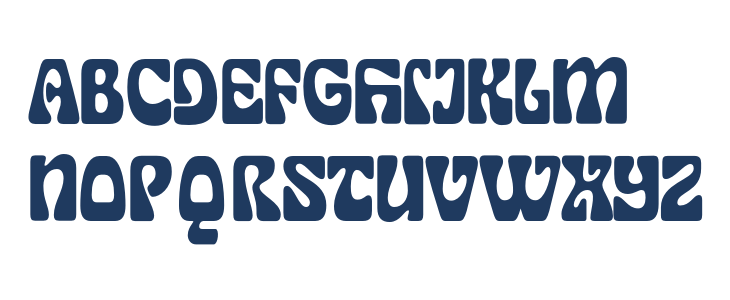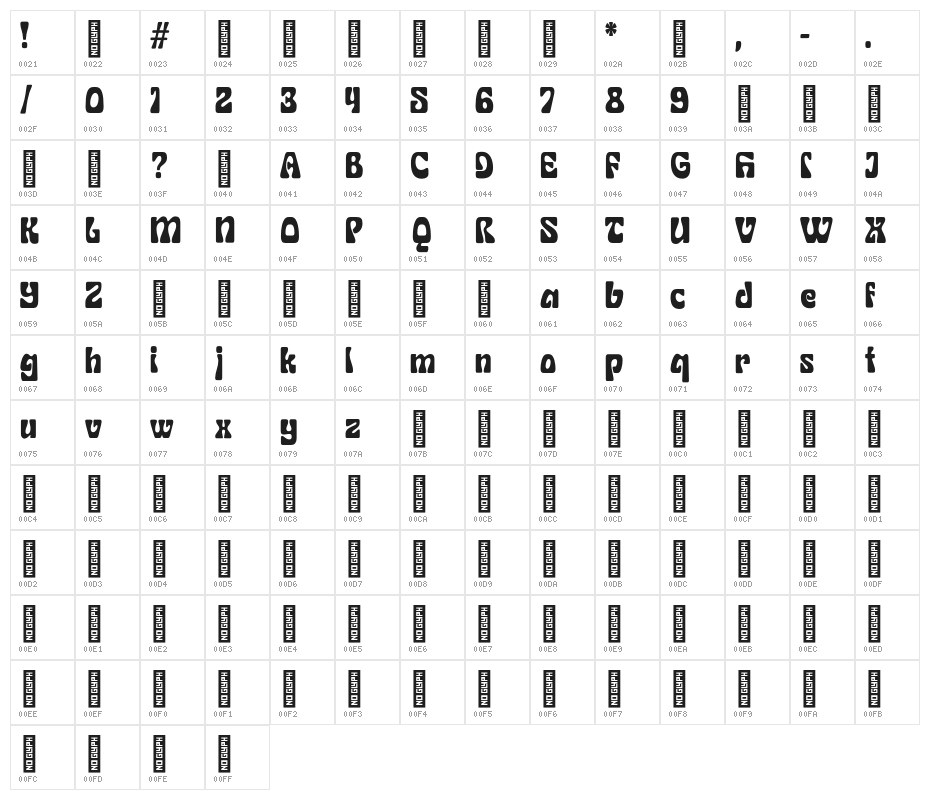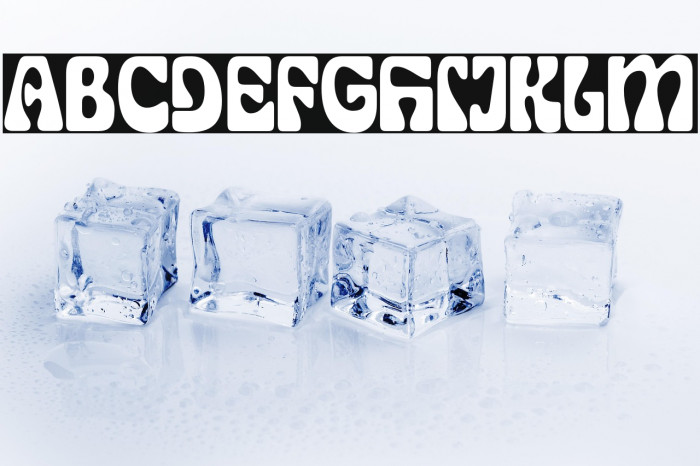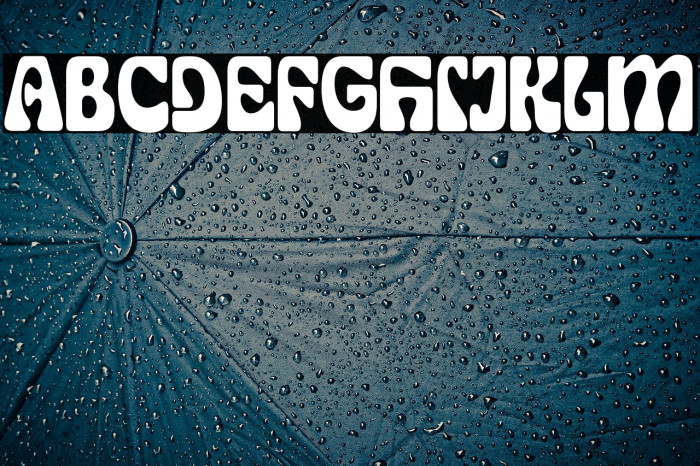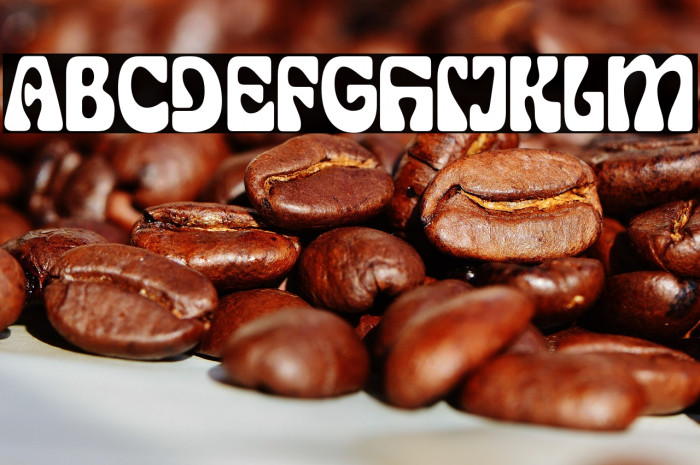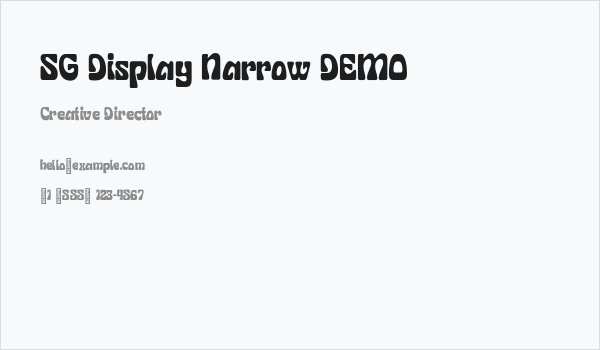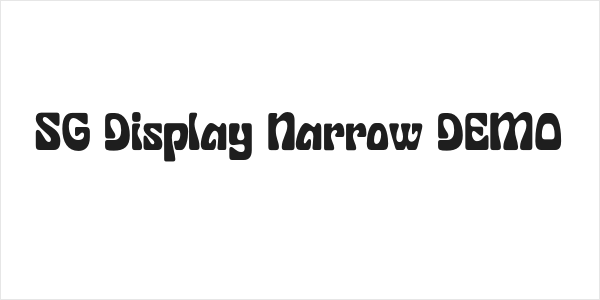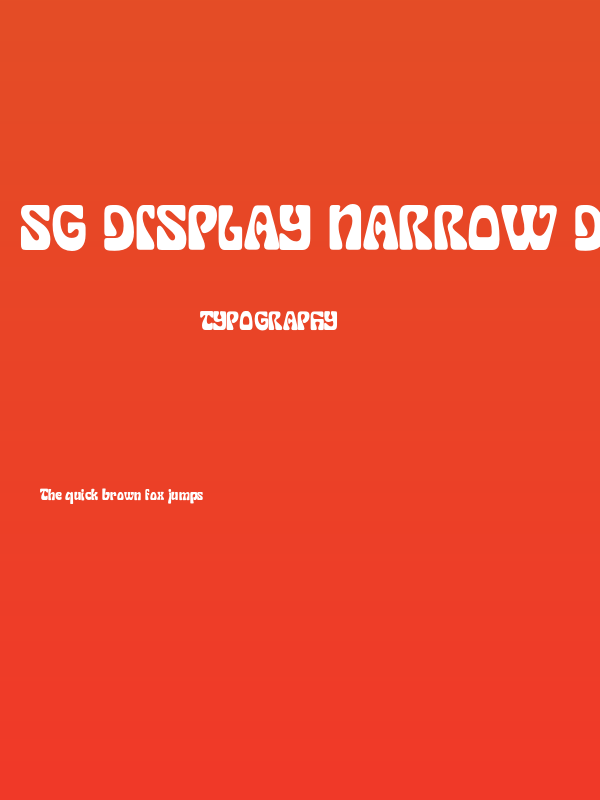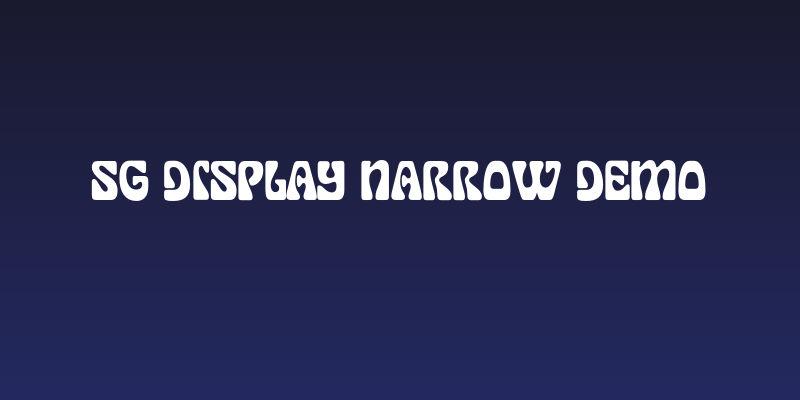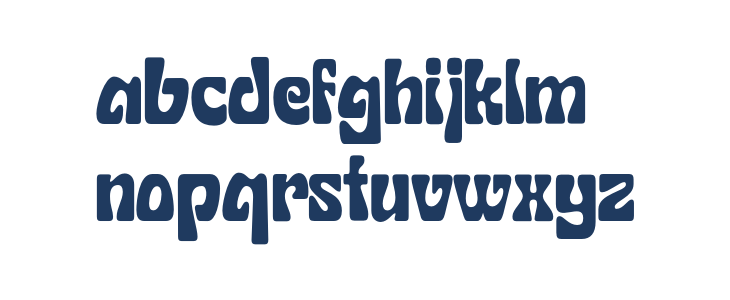
SG Display Narrow DEMO Font
SG Display Narrow DEMO Description
A bold, condensed display typeface with heavy, rounded forms and unique cutout shapes within each character, giving it a playful and eye-catching appearance. The characters are tightly spaced with consistent stroke thickness and minimal contrast.
| Overall Style | Decorative, Modern, Playful |
| Proposed Projects | Posters, album covers, branding, event flyers, signage, editorial headlines. |